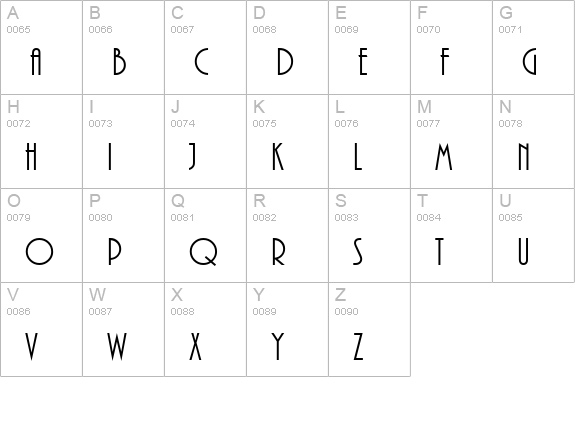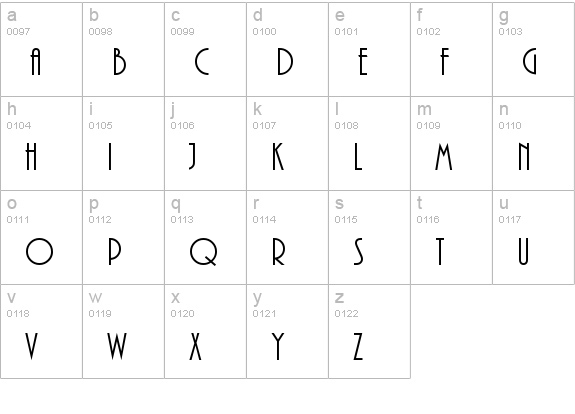
Pizzicato-Regular is the standard, neutral variant in the Pizzicato typeface family \xE2\x80\x94 well suited to general body text, paragraphs, and standard typographic work.
Pizzicato-Regular is a charming and elegant font that exudes sophistication and style. With its delicate curves and graceful lines, this font is perfect for adding a touch of class to your designs. Whether you're creating invitations, posters, or branding materials, Pizzicato-Regular is sure to make a statement. The best part? Pizzicato-Regular is available for free download at FontsMarket.com. That's right - you can elevate your designs without breaking the bank. Don't miss out on this fabulous font that will take your projects to the next level. Download Pizzicato-Regular today and let your creativity soar!